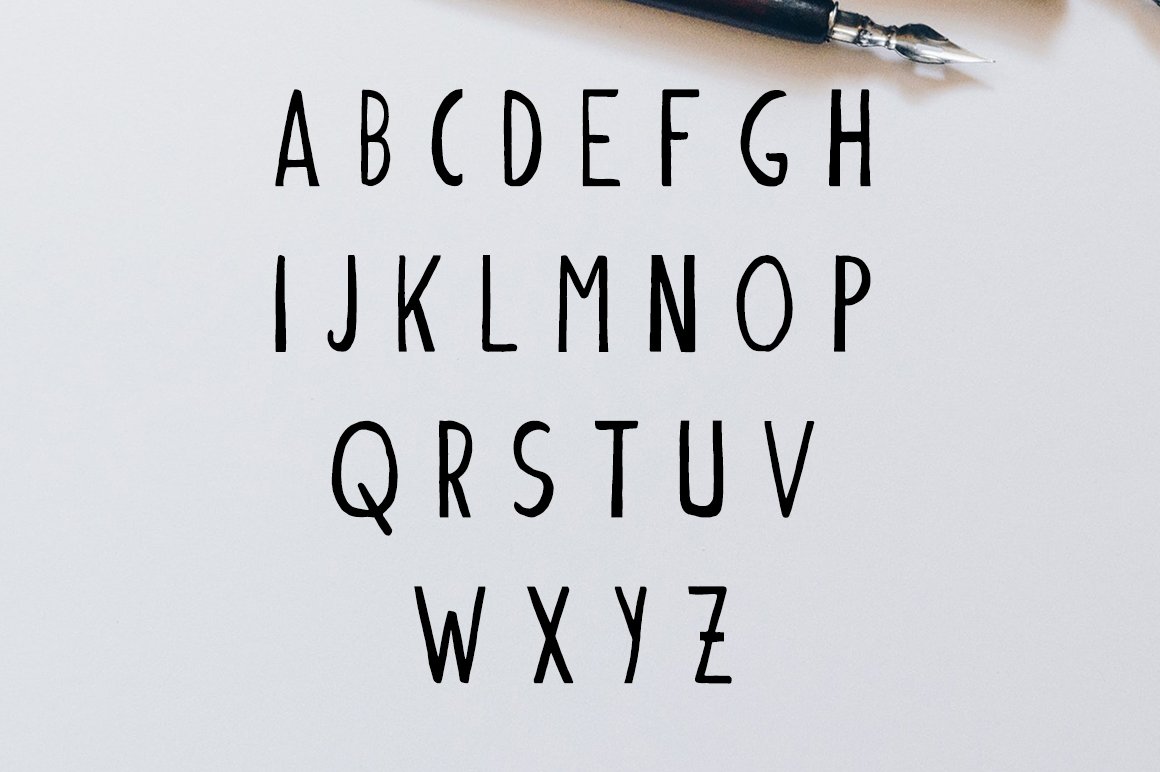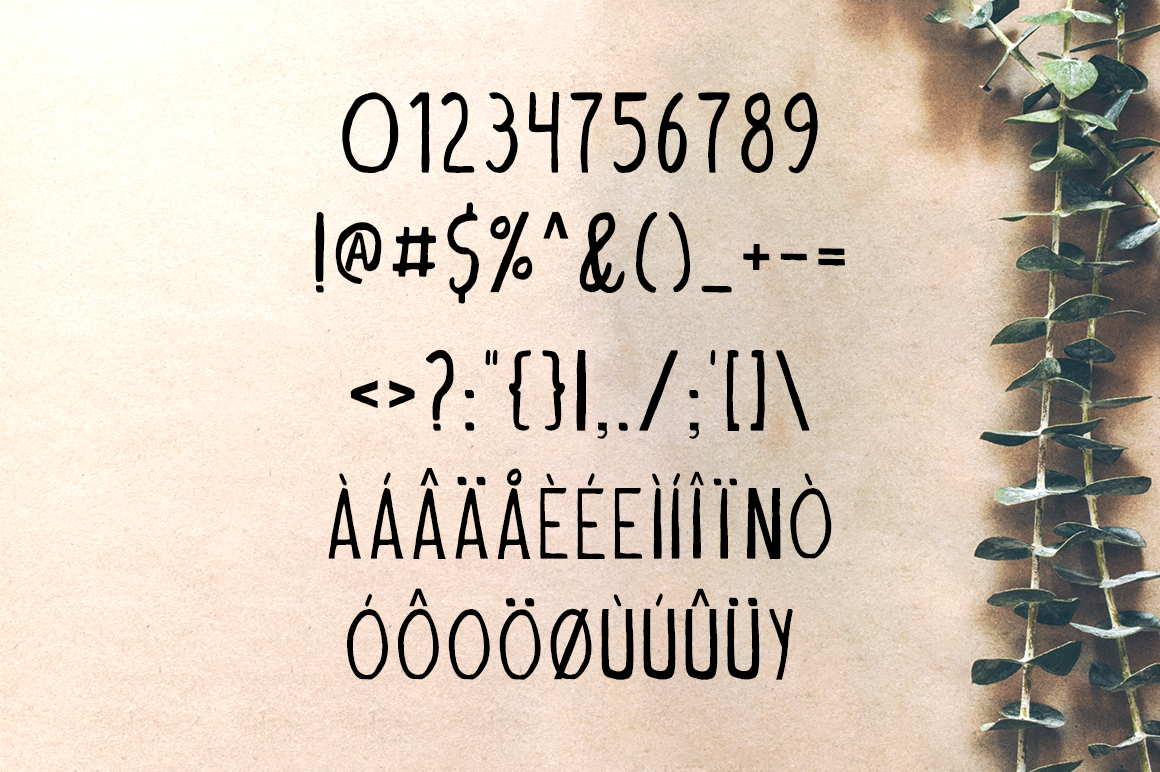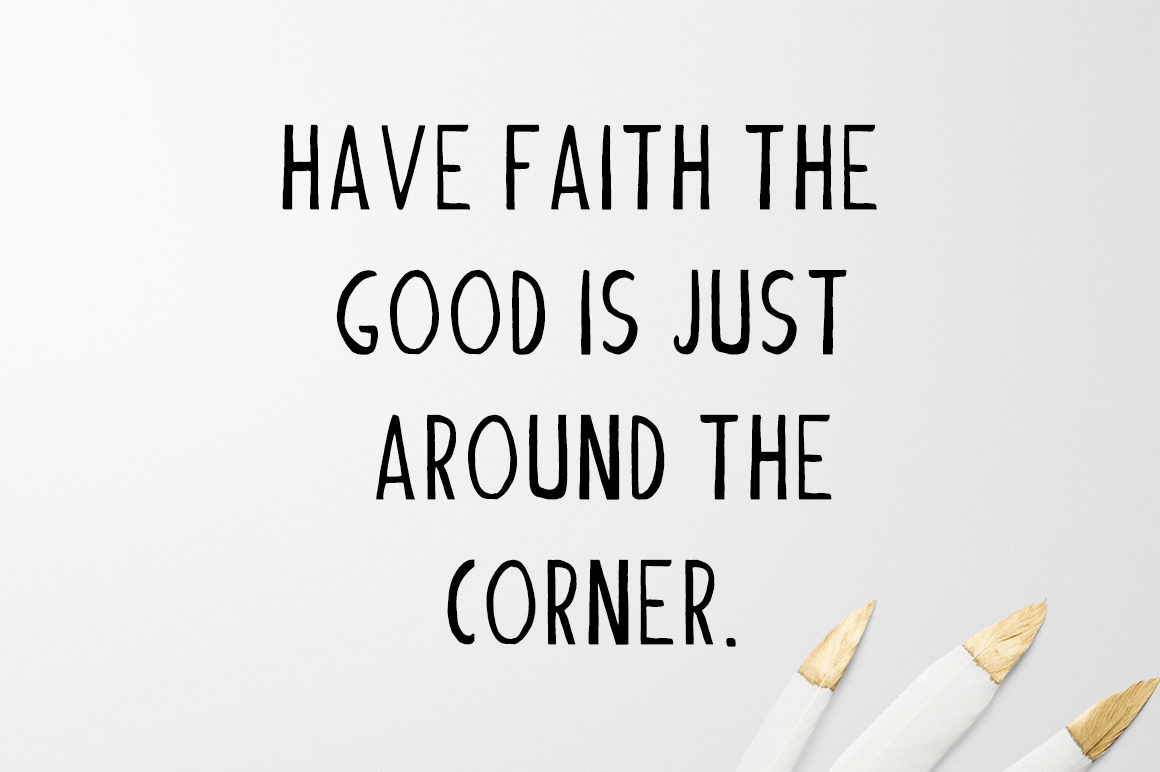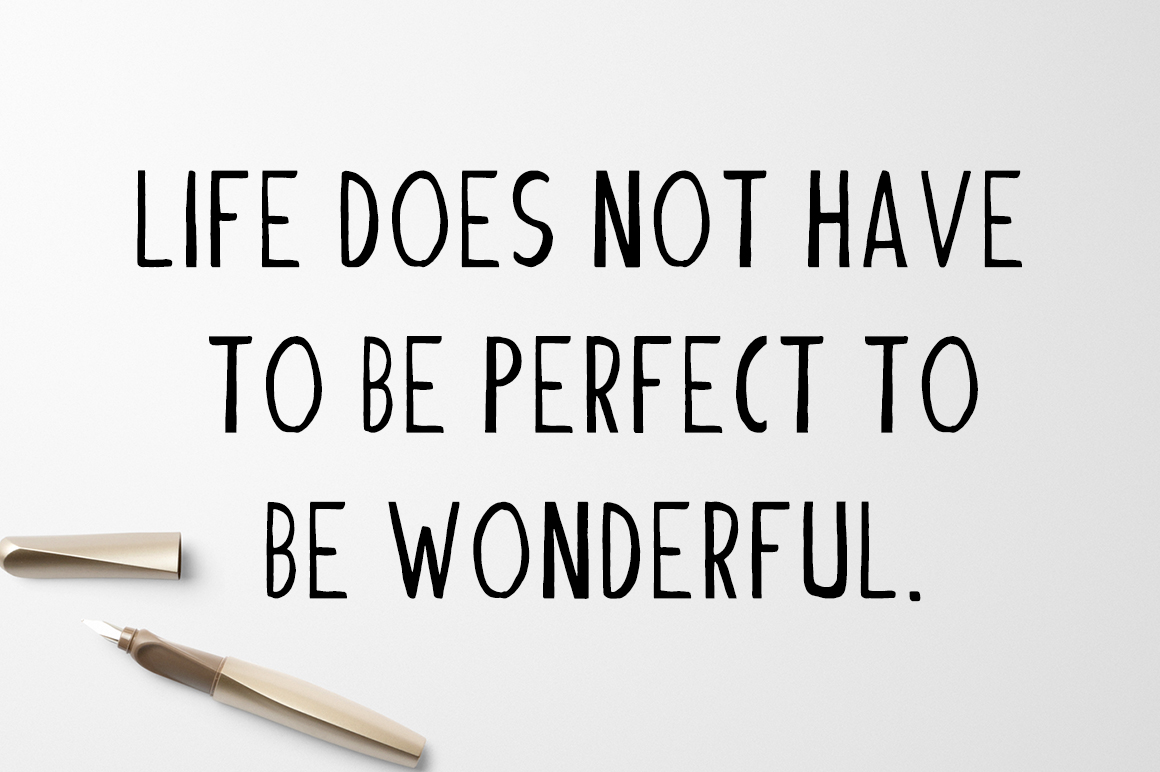
Talissa Font
About Talissa Font
A handmade and timeless font, Talissa is a great sans serif typeface that can add a uniquely handmade look to your designs. Both classy and modern, Talissa is a great sans serif option.